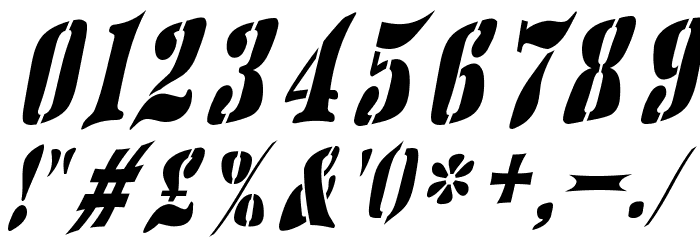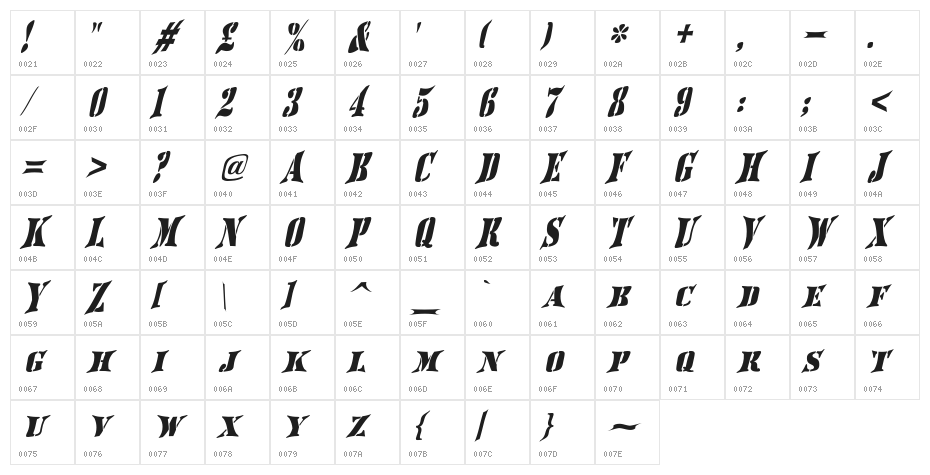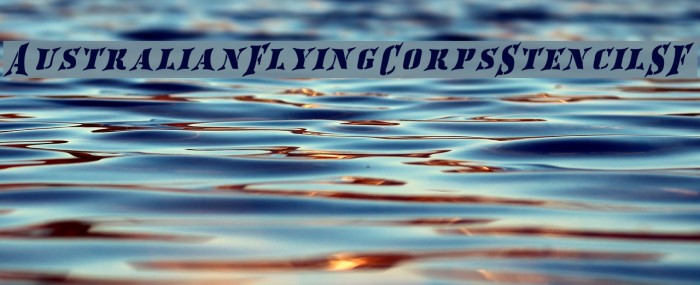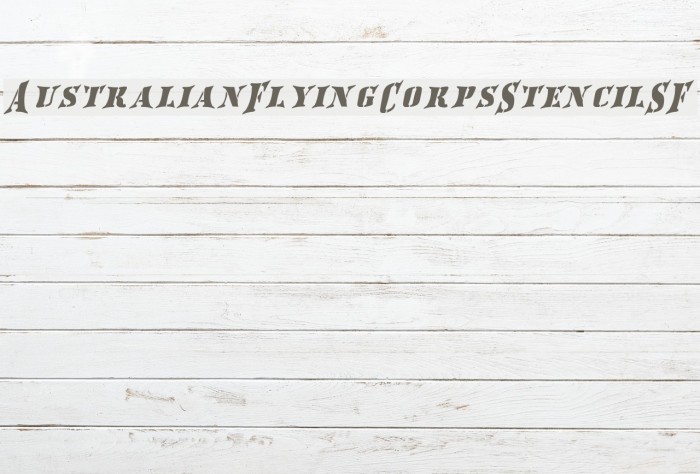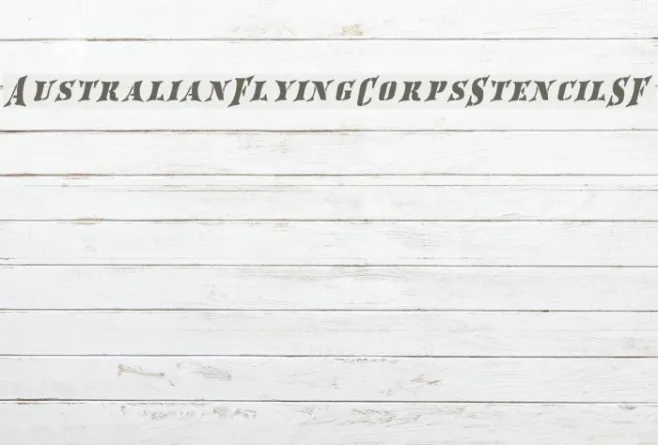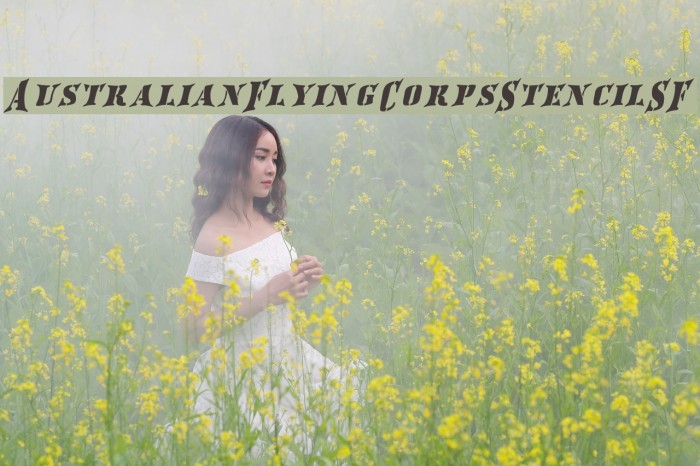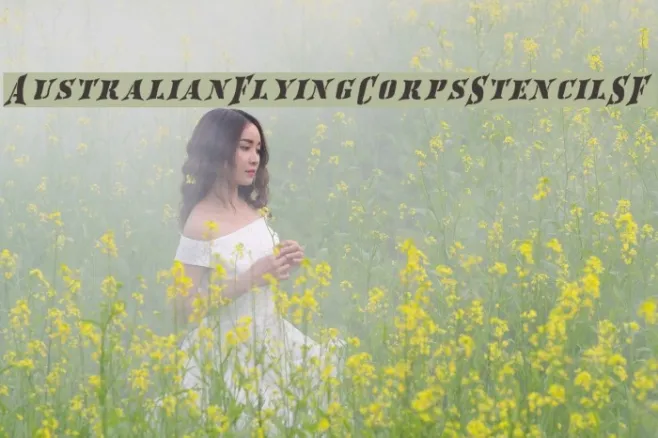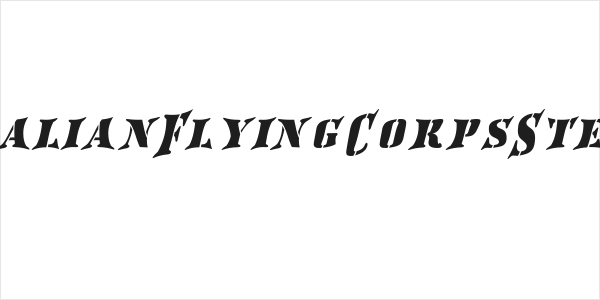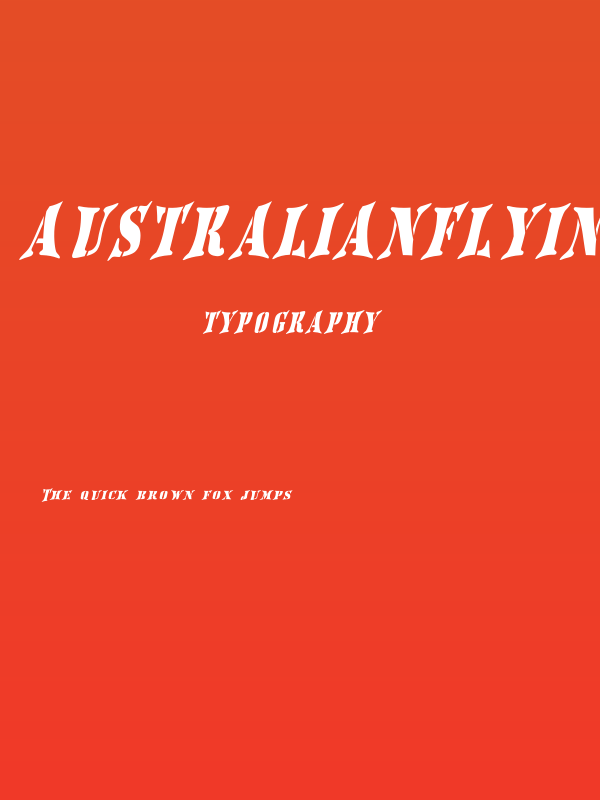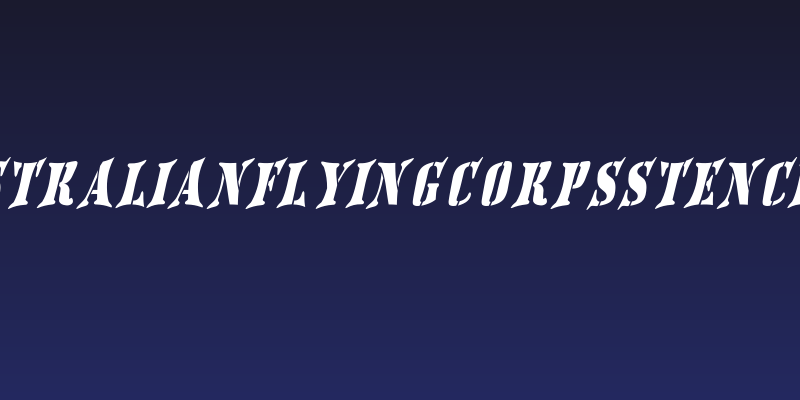
AustralianFlyingCorpsStencilSF Font
AustralianFlyingCorpsStencilSF Description
This font features a bold, stencil-like design with sharp, angular cuts that create a rugged and industrial feel. The characters are distinctly separated by stencil gaps, giving it a military or aviation-inspired aesthetic. The uppercase and lowercase letters maintain a consistent style, with the uppercase being slightly more pronounced. Numbers and special characters follow the same design principles, ensuring uniformity across the typeface. The font's boldness and unique style make it stand out, suitable for projects that require a strong, impactful visual presence.
| Proposed Projects | Ideal for military-themed designs, aviation posters, industrial branding, and signage. |